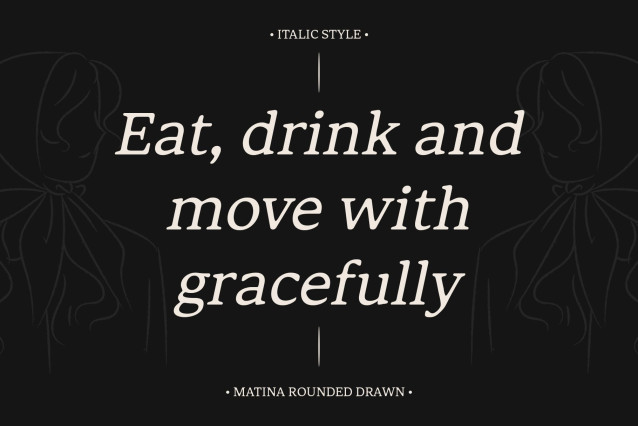
Matina Rounded Drawn Font
Matina Rounded Drawn Font is a modern classic serif font that seamlessly blends geometric precision with rounded edges. The geometric letterforms give the font a clean, contemporary feel, while the rounded curves add a sense of warmth and approachability.